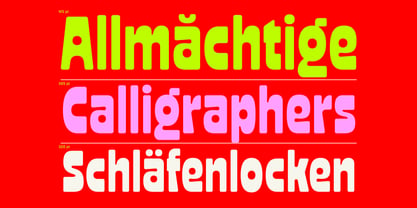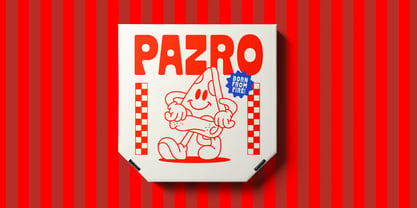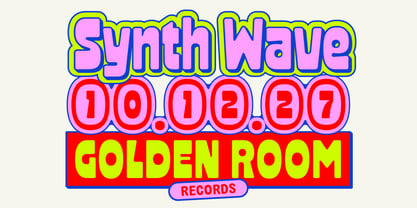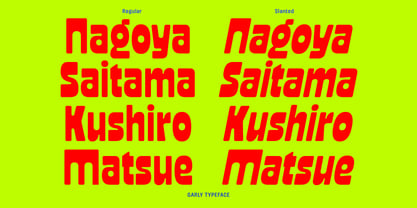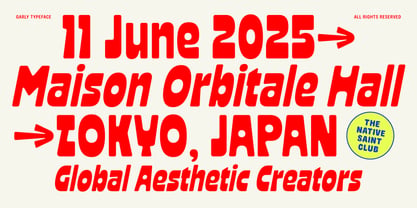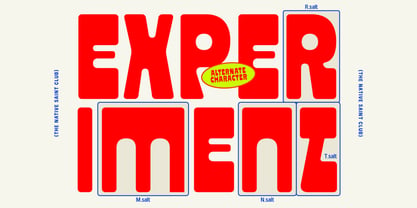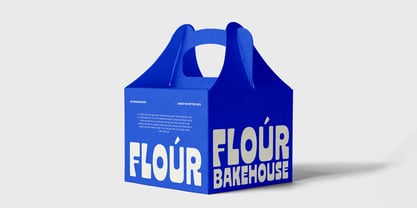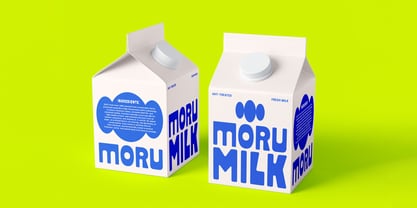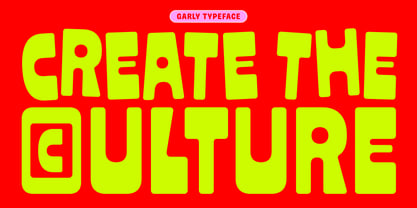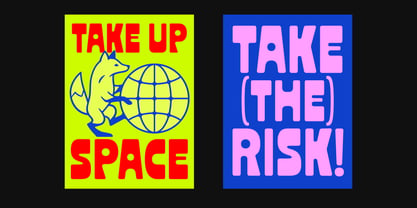
TNSC Garly
by The Native Saint Club
The TNSC Garly Font Family was designed by Bagas Ferdiansah, Septianto Nugroho and published by The Native Saint Club. TNSC Garly contains 2 styles and family package options. More about this family
TNSC GARLY is a bold display typeface with rounded and playful letterforms. It is an upgraded version of Grand Mottley Sans, refined with softer edges and improved character shapes for better balance and readability. The overall look is modern, friendly, and versatile, making it suitable for a wide range of design and visual projects. It comes in two styles: Regular and Slanted.
Designers: Bagas Ferdiansah, Septianto Nugroho
Foundry: The Native Saint Club